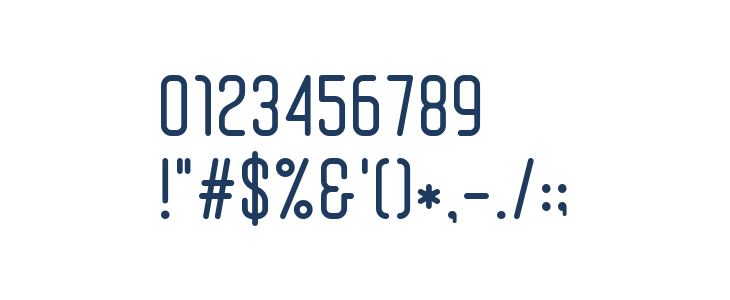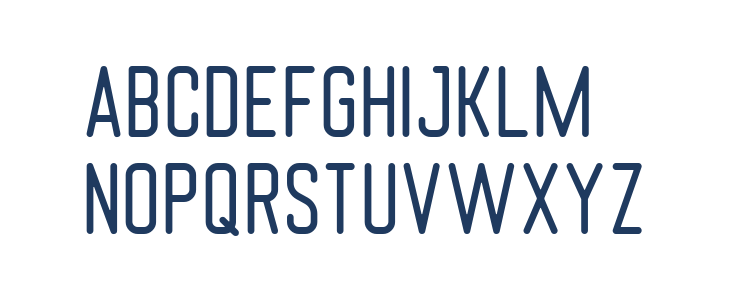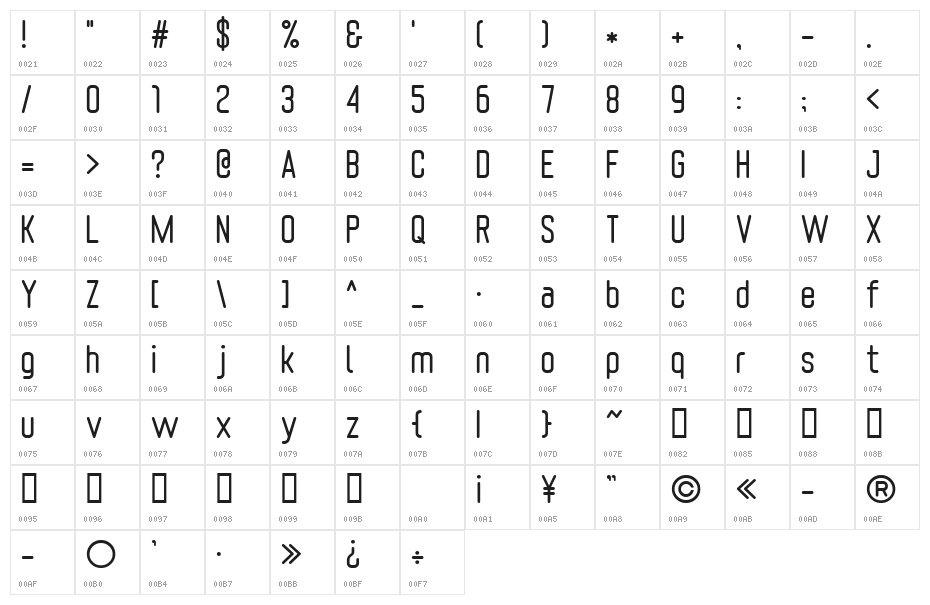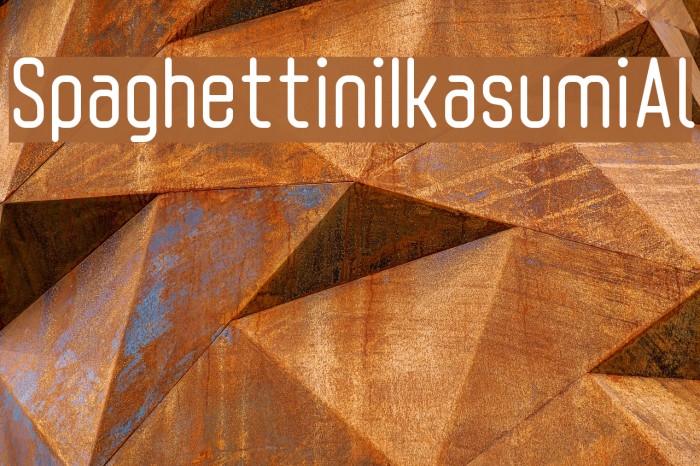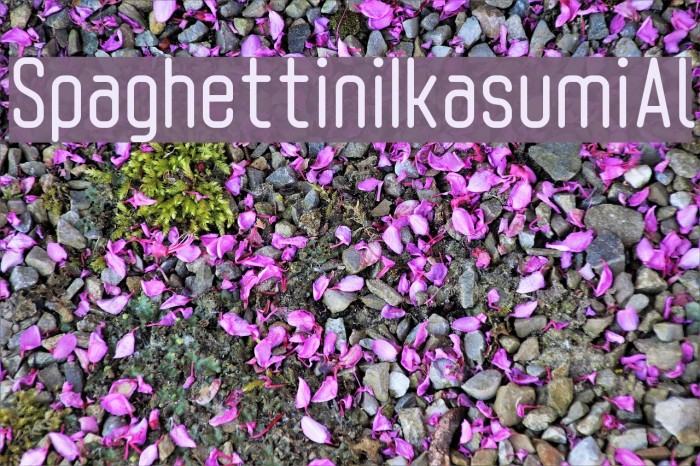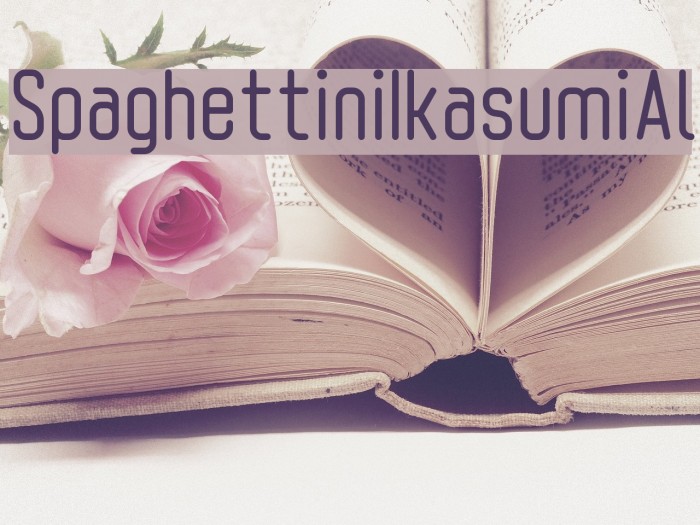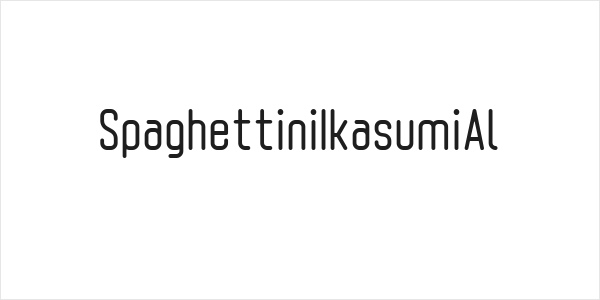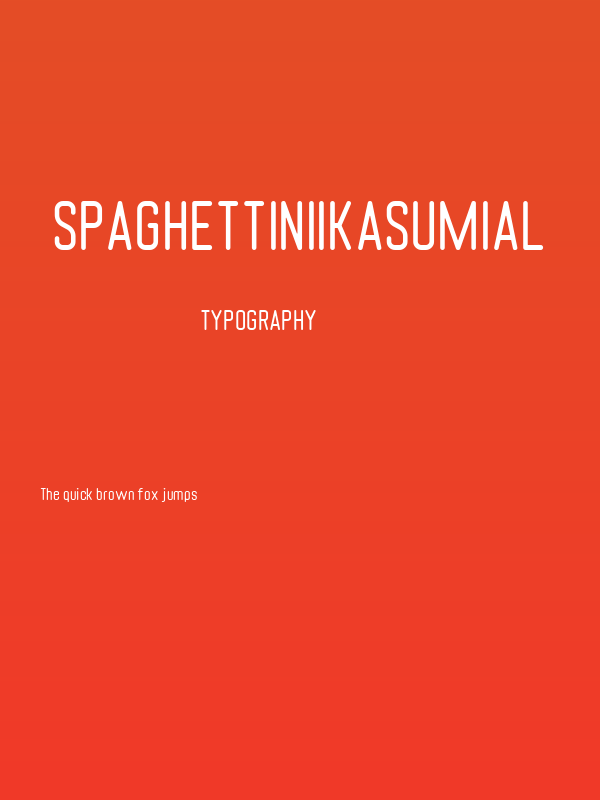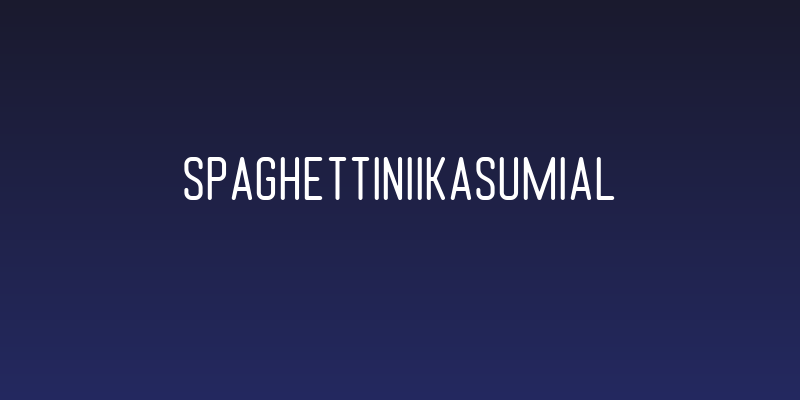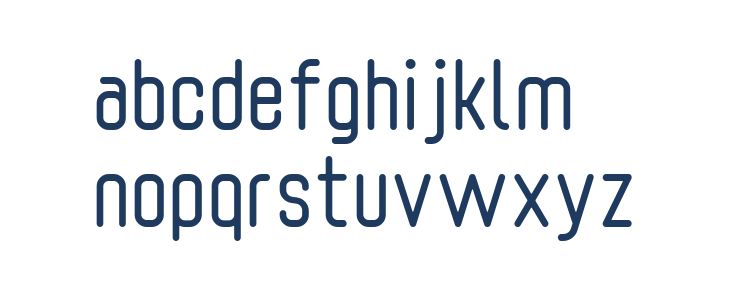
SpaghettiniIkasumiAl Font
SpaghettiniIkasumiAl Description
This font features a clean, modern design with rounded edges and a uniform stroke width, giving it a friendly and approachable appearance. The characters are tall and narrow, contributing to a condensed look that maximizes space efficiency. The uppercase and lowercase letters maintain a consistent style, with smooth curves and minimal contrast in stroke thickness. The numerals are clear and legible, matching the overall aesthetic of the alphabet. Special characters are well-integrated, maintaining the font's cohesive style. This font's simplicity and clarity make it versatile for various applications.
| Use Case | Headlines, Logos, Digital interfaces |
| Proposed Projects | Ideal for branding, signage, packaging, and digital interfaces where clarity and modernity are key. |